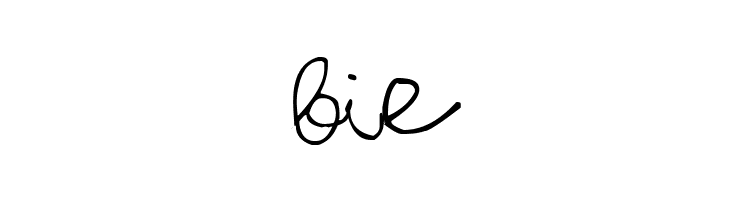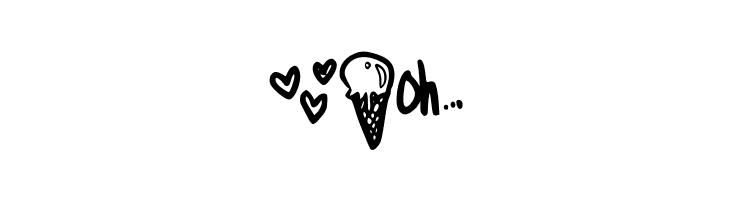
( Fonts by Kimberly Geswein - kimberlygeswein.com )
A casual, handwritten cursive font with fluid strokes and dynamic character.
( Fonts by Marcin Leskow - www.martinleskow.pl )
A playful and elegant handwritten script font with dynamic strokes.
A playful, handwritten font with fluid, interconnected strokes and a whimsical charm.
( Fonts by Andrew Hart - dirt2.com )
A whimsical, bold script font with flowing, interconnected letters and decorative swashes.